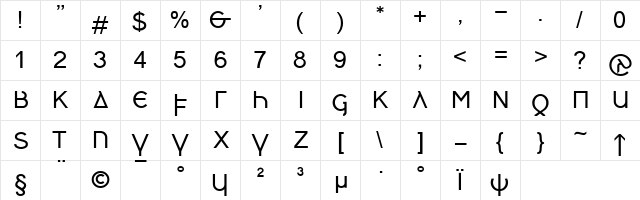
Skeirs GR Normal
| Foundry | Robert Pfeffer, Hessen. |
| Designer | Robert Pfeffer, Hessen. |
Design Context for Skeirs GR Typeface
Skeirs GR is a composed and adaptable typeface that performs quietly and consistently across a wide range of design contexts.